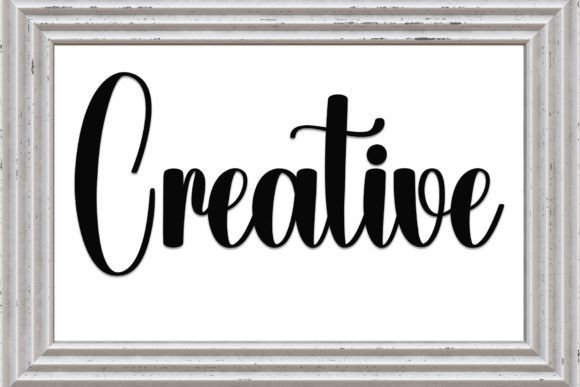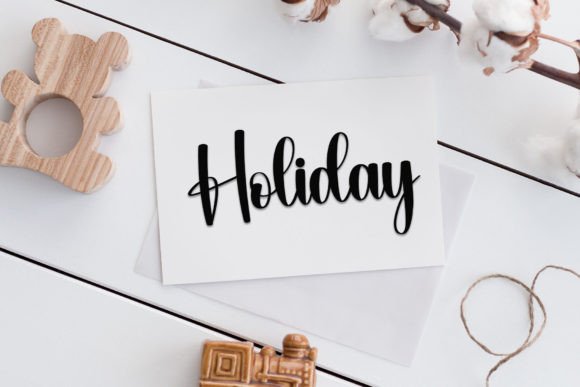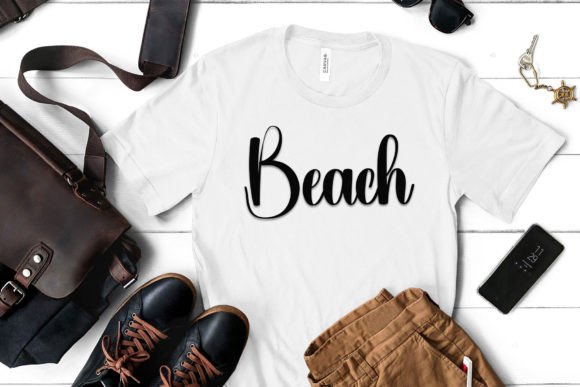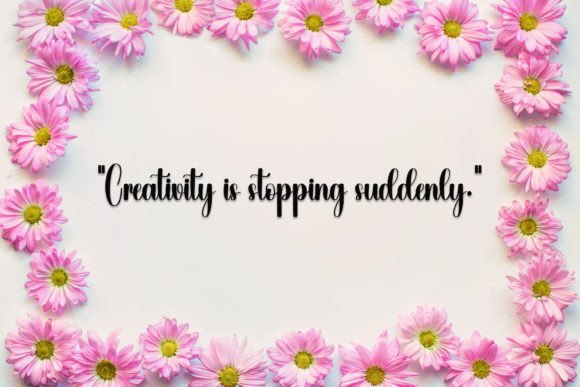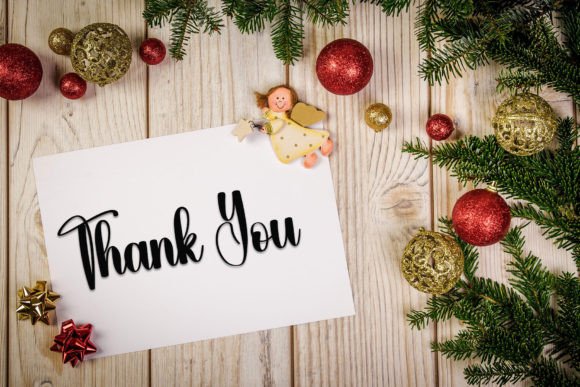
Unleash the Legend: Discover the Elegance of Bigfoot Font
Are you a designer or crafter looking for a font that exudes elegance and sophistication? Look no further than the Bigfoot Font, a trendy handwritten font that brings a contemporary atmosphere and impeccable form to your design projects. Inspired by timeless classic calligraphy, Bigfoot Font is the perfect addition to any creative endeavor.
The Inspiration Behind Bigfoot Font
Bigfoot Font draws inspiration from the world of classic calligraphy, where the art of beautiful handwriting is revered. The font’s creators aimed to capture the essence of traditional calligraphy and infuse it with a modern twist, making it perfect for designers and crafters who want to add a touch of sophistication to their work.
What Makes Bigfoot Font So Special?
So, what sets Bigfoot Font apart from other fonts? Here are a few key features that make it a standout:
- Trendy and Contemporary: Bigfoot Font boasts a modern and fresh feel, making it perfect for designers who want to stay on top of the latest trends.
- Handwritten with Love: The font’s handwritten style gives it a personal and human touch, adding warmth and character to any design project.
- Elegant and Classy: With its impeccable form and classic inspiration, Bigfoot Font brings an air of sophistication and elegance to any design.
Bigfoot Font is a versatile font that can be used in a wide range of design projects, from:
- Branding and Logo Design: Add a touch of elegance to your brand’s identity with Bigfoot Font.
- Stationery and Invitations: Create beautiful and sophisticated stationery and invitations that will leave a lasting impression.
- Packaging and Product Design: Elevate your product design with a font that exudes class and sophistication.
- Digital and Print Media: Use Bigfoot Font in your digital and print media projects, such as brochures, flyers, and social media graphics.
Tips for Using Bigfoot Font
To get the most out of Bigfoot Font, here are a few tips to keep in mind:
- Pair it with Other Fonts: Experiment with pairing Bigfoot Font with other fonts to create a unique and visually appealing combination.
- Use it in Headings and Titles: Bigfoot Font is perfect for headings and titles, where its elegant and classy style can shine.
- Experiment with Colors: Try using Bigfoot Font in different colors to add depth and visual interest to your design.
| Feature | Benefit |
| Trendy and Contemporary Style | Stay on top of the latest design trends |
| Handwritten with Love | Add a personal and human touch to your designs |
| Elegant and Classy Style | Bring sophistication and elegance to your designs |
| Impeccable Form | Ensure perfect lettering and typography |